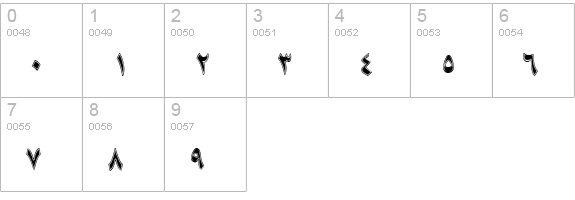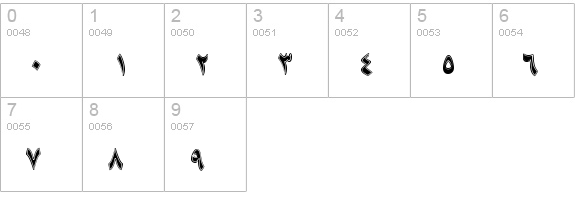
B Niki Border Font Details
B Niki Border font is a beautifully crafted typeface that exudes elegance and sophistication. Its intricate border design adds a touch of charm to any project, making it perfect for invitations, greeting cards, and other creative designs. This unique font is versatile and can be used in a variety of settings, from wedding stationery to branding materials. The best part? B Niki Border font is completely free to download at FontsMarket.com. You can easily access this stunning font and elevate your design projects with its distinctive style. Don't miss out on the opportunity to enhance your creativity with B Niki Border font – download it today and bring a touch of elegance to your designs.